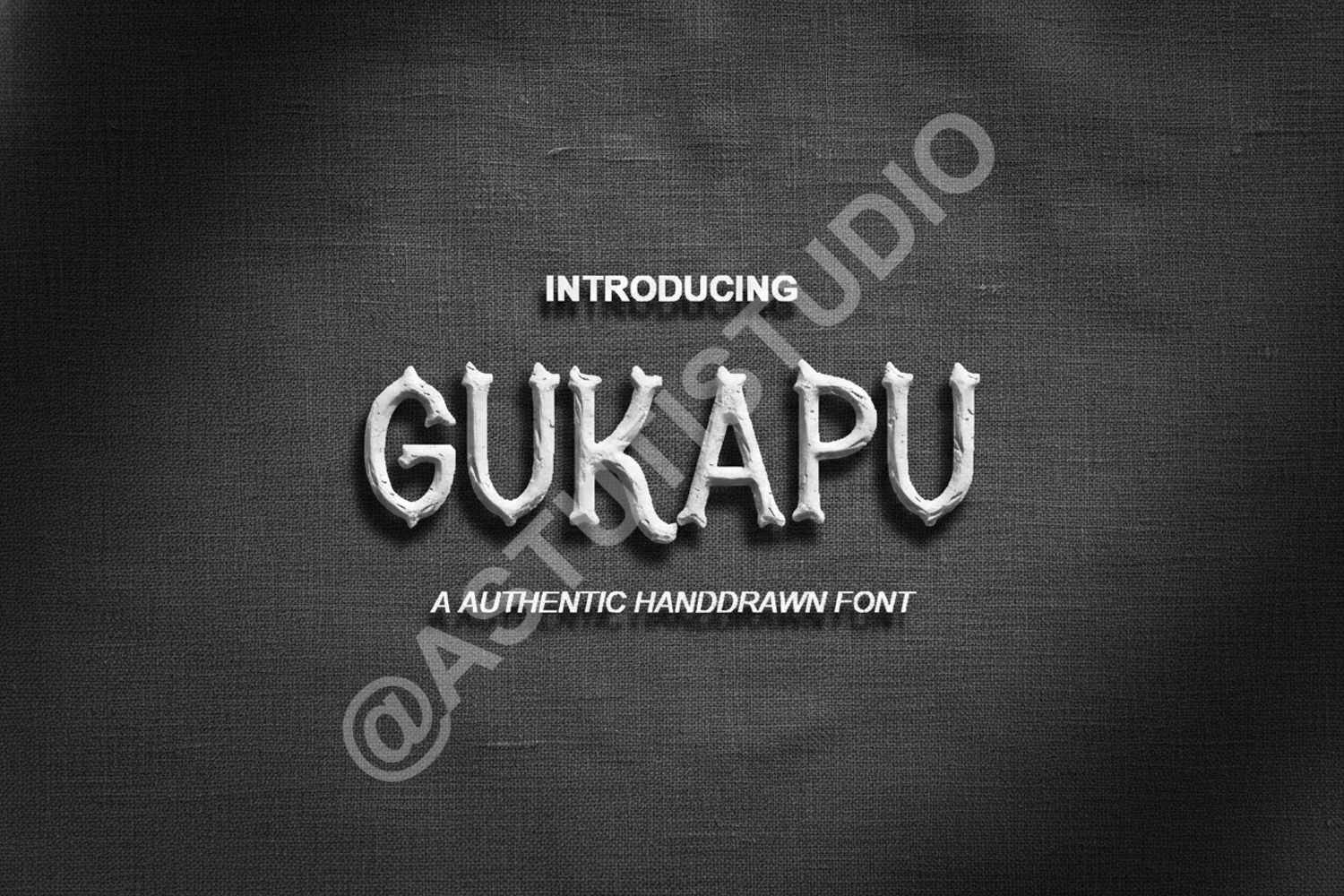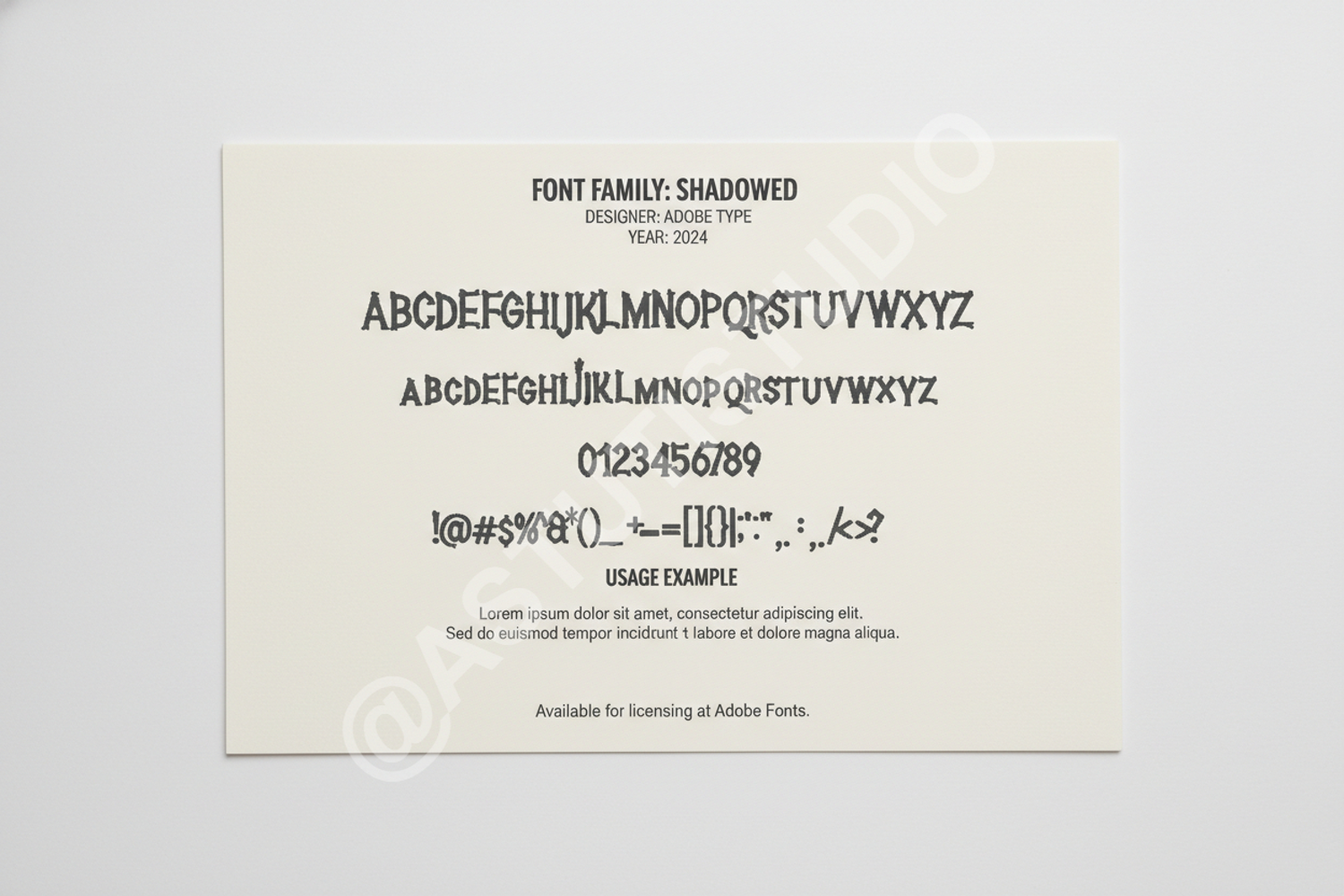
Gukapu - Modern Bold Serif Display Font
Gukapu
Gukapu is a premium serif font designed to bring a sophisticated and contemporary edge to your creative projects. With its unique balance of bold strokes and refined geometric details, this typeface stands out as a versatile choice for designers seeking a high-end aesthetic. Whether you are crafting a minimalist brand identity or a high-impact editorial layout, Gukapu delivers professional results every time.
- Full character set including uppercase, lowercase, numbers, and punctuation
- Multilingual support for global accessibility
- Branding and Logo Design: Create memorable identities for luxury brands and startups.
- Wedding Stationery: Add a touch of modern elegance to invitations and save-the-date cards.
- Editorial Layouts: Perfect for magazine headers, book covers, and digital publications.
- Social Media Graphics: Elevate your Instagram posts and Pinterest pins with bold typography.
- Product Packaging: Enhance the shelf appeal of high-end consumer goods.